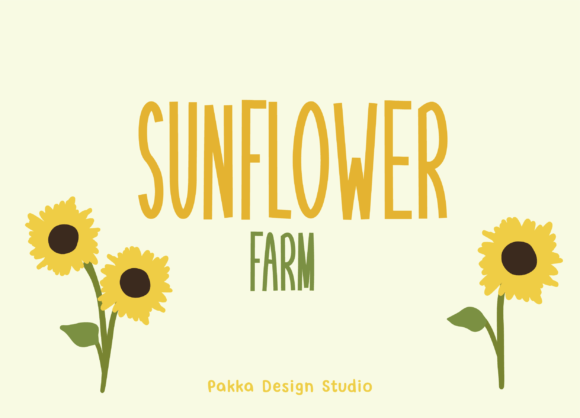
Immerse yourself in the beauty of "Sunflower Farm," a script font that is as captivating as a sunflower field basking in the summer sun. This square handwritten font radiates a cheerful glow, just like a walk through a sun-kissed farm, where creativity blooms in every corner.
With its rustic authenticity, "Sunflower Farm" is the perfect choice for tattoo designs, adding a touch of individuality and charm to your ink. Each character dances with creativity, bringing a sense of playfulness and wonder to your designs.
Whether you're creating designs for kids, nature-inspired projects, or simply seeking a font that exudes the warmth of a sunny day, "Sunflower Farm" is your perfect match. Its carefree spirit and rustic charm will add a touch of magic to your work, leaving a lasting impression on all who encounter it.